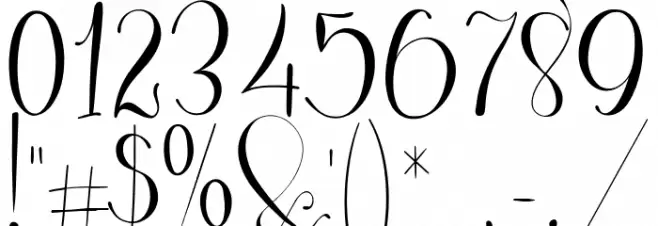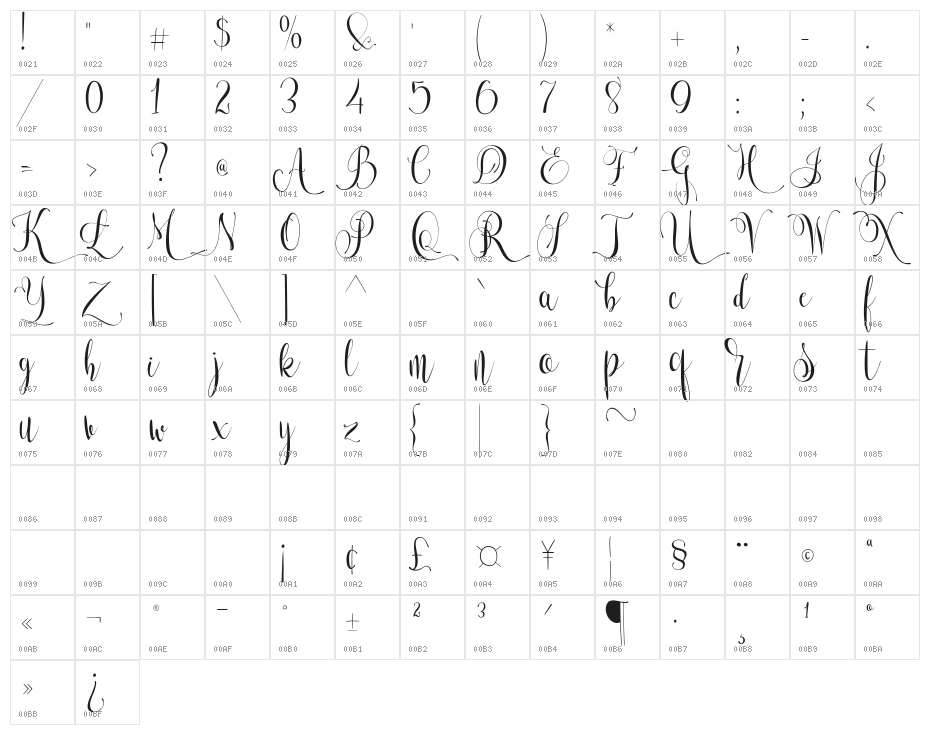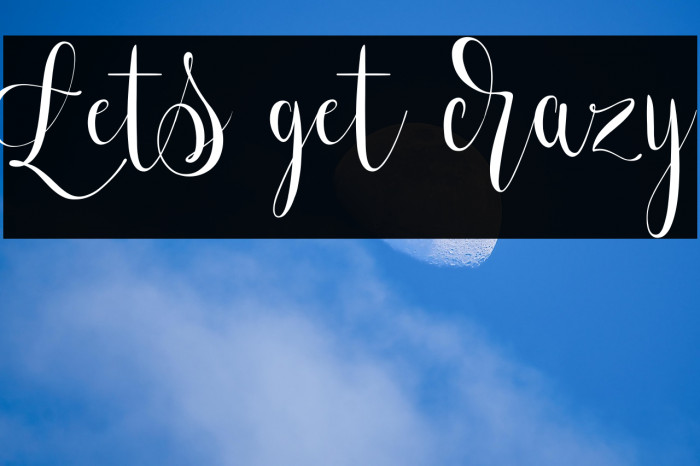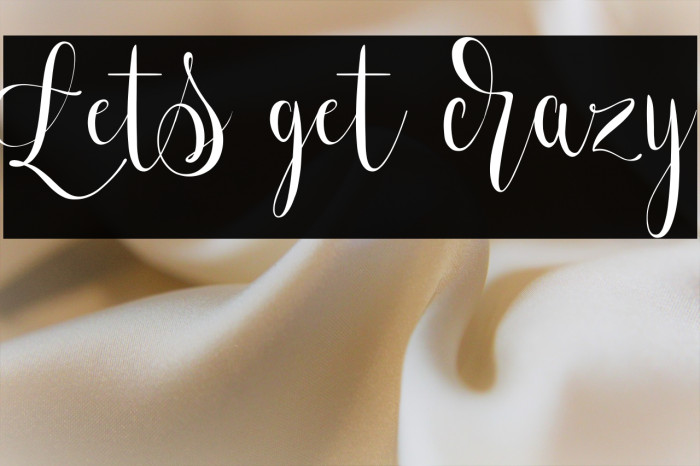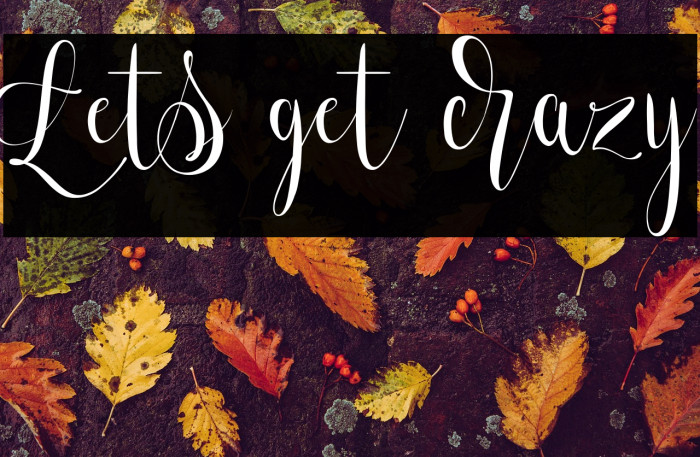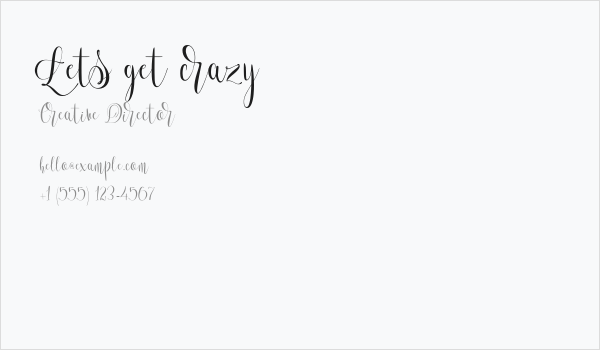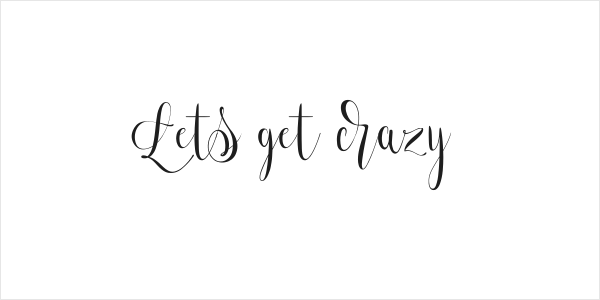
Lets get crazy Font
Lets get crazy Description
This font exhibits a highly decorative and elegant script style, characterized by its flowing, interconnected letterforms and intricate swashes. The uppercase letters are particularly ornate, with elaborate loops and flourishes that give a sense of movement and sophistication. The lowercase letters maintain a consistent style, with a graceful, cursive appearance that complements the uppercase set. The numerals are similarly styled, featuring a blend of curves and straight lines that maintain readability while adding a touch of flair. Special characters are thoughtfully designed to match the overall aesthetic, ensuring a cohesive look across all text elements. This font's artistic nature makes it ideal for projects that require a touch of elegance and creativity.
A decorative script font with flowing, interconnected letterforms and intricate swashes from Regular fonts.
- Proposed Projects: Ideal for wedding invitations, greeting cards, branding, and any project requiring an elegant touch.
- Character Spacing: Tight
- Use Case: Logos, Invitations, Decorative text